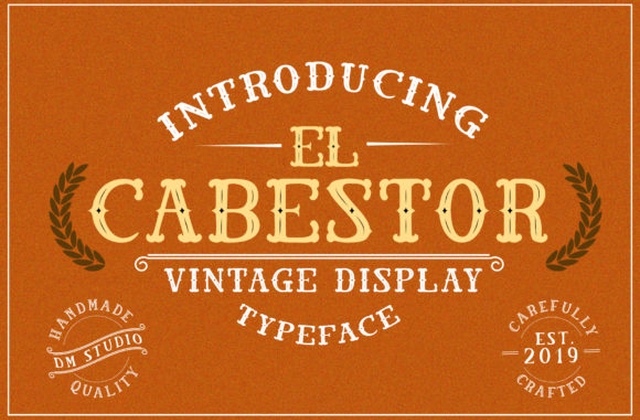
El Cabestor Font
El Cabestor Font is perfect for various design applications including Mexican restaurant branding, Latin American cultural event materials, Spanish language publications, traditional cantina signage, authentic taco shop logos, Latin music festival graphics, Hispanic heritage celebrations, Mexican food packaging, mariachi band promotions, and vibrant Latino lifestyle brand identities. This spirited typeface excels in projects requiring Latino authenticity and Mexican cultural appeal that captures the passionate energy and colorful traditions of Hispanic heritage and Latin American culture.
What makes El Cabestor Font so exciting is its vibrant embodiment of Mexican cultural spirit and Latino passion through letterforms that suggest the bold colors and festive energy of traditional Mexican celebrations and Latin American artistic traditions. The font features dynamic construction that mirrors the rhythmic patterns of Latin music, expressive proportions that communicate cultural warmth and passionate celebration, and distinctive character details that evoke hand-painted Mexican signage and the artistic vibrancy of Latino cultural expression. Its distinctive cultural character and festive appeal make it perfect for Latino brands seeking to communicate authenticity, celebration, and the joyful spirit that defines Mexican culture and Latin American heritage.
El Cabestor Font family includes multiple festive weights and cultural variations that enhance its versatility for different Latino applications. Each style maintains the font's signature spirited character while providing options for various Mexican design approaches. The family also features Latino-inspired decorative elements, Mexican cultural symbols, and festive ornaments that can be combined with the letterforms to create cohesive Hispanic heritage design systems.
Whether you're developing Latino brands, Mexican cultural projects, or Hispanic heritage communications, El Cabestor Font Free Download provides authentic typography that celebrates the vibrant spirit of Mexican culture and honors the passionate traditions of Latino heritage and Latin American artistic expression. This typeface transforms ordinary communications into festive celebrations that promise authentic Mexican experiences and Latino cultural richness. The font's cultural appeal makes it particularly effective for Mexican restaurants, Latino cultural organizations, and Hispanic heritage businesses targeting audiences who appreciate authentic Mexican culture and Latin American traditions.
El Cabestor Font stands out by delivering genuine Mexican cultural authenticity that feels respectfully connected to real Latino traditions rather than stereotypical Hispanic styling. Its carefully crafted cultural proportions and traditional details ensure that designs feel authentically connected to Mexican heritage and Latin American artistic traditions. From Mexican restaurant branding to Latino cultural festival materials, this font provides designers with tools to create communications that celebrate Mexican culture and inspire appreciation for Hispanic heritage through vibrant, culturally-inspired typography that honors the passionate spirit of Latino traditions.